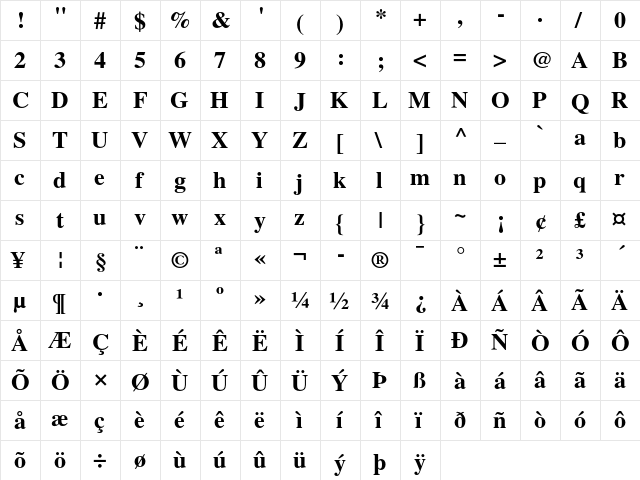
Tempora LGC Uni Bold
Design Context for Tempora LGC Uni Typeface
Tempora LGC Uni offers clean, dependable letterforms without strong stylistic allegiance, making it a practical choice for designers who need flexibility. Its bold stroke weight gives it real presence on the page.